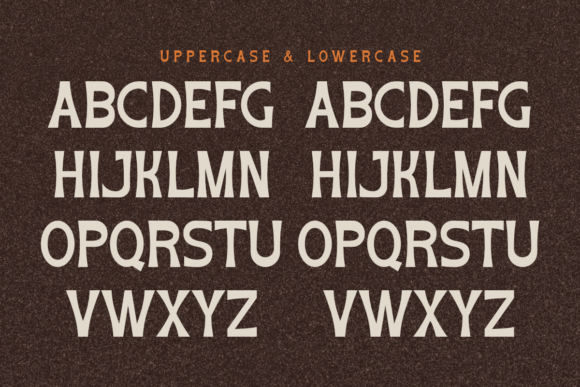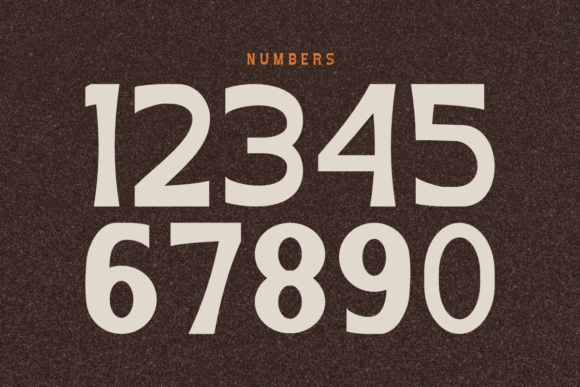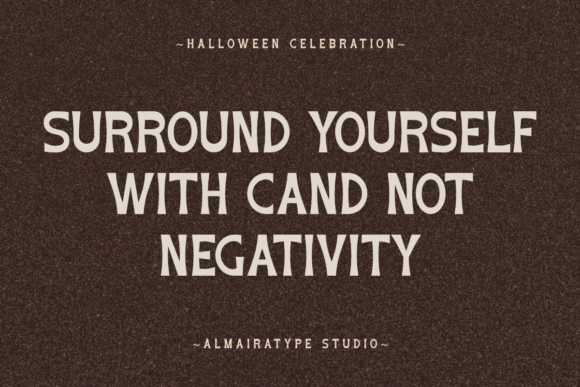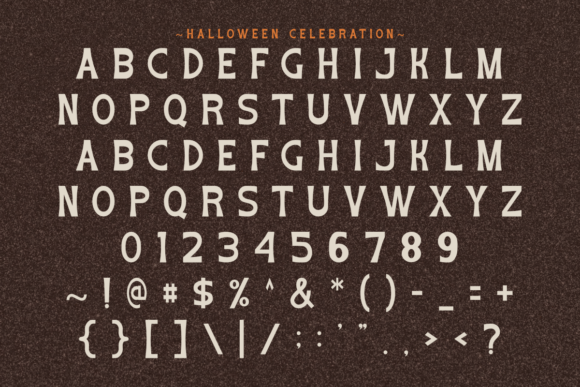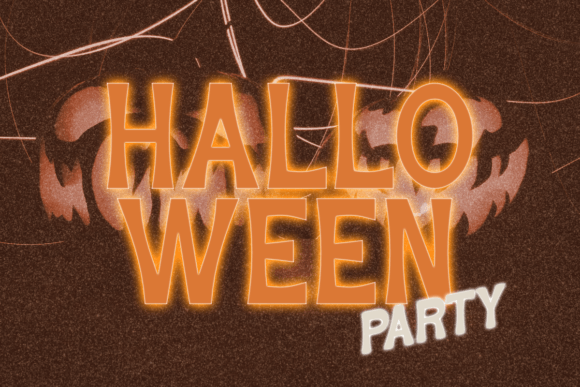
Introduction to Halloween Celebration Font
Halloween Celebration is a vintage sans serif font.
Inspired by 50s 60s signs, this font was created to bring back the good old days This type of font is very suitable for application, especially on logos, headlines, signage and various other formal forms such as invitations, labels, logos, magazines, books, greeting/wedding cards, packaging, fashion, make up, stationery, novels, labels or anything else.